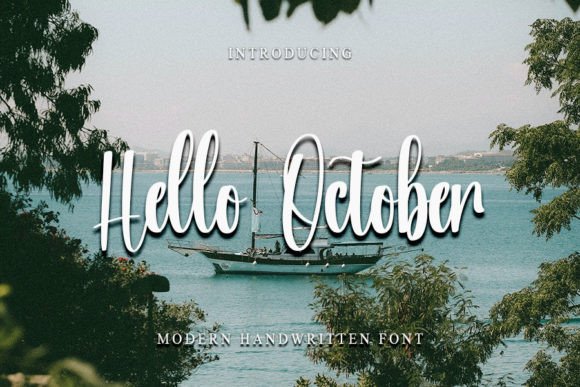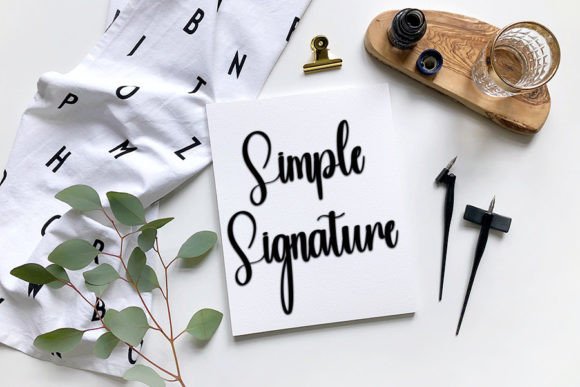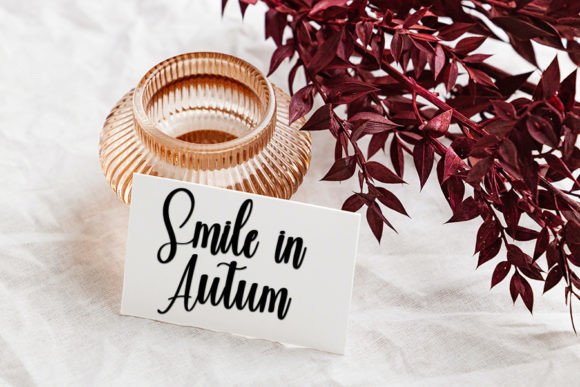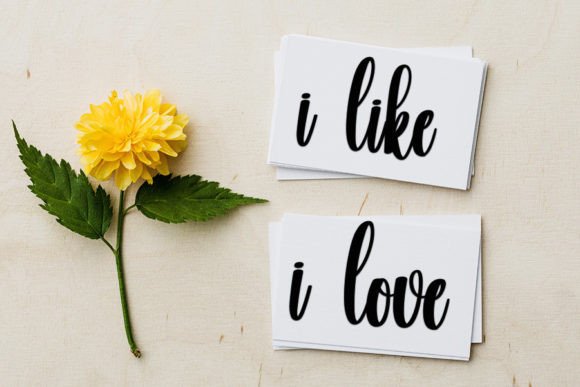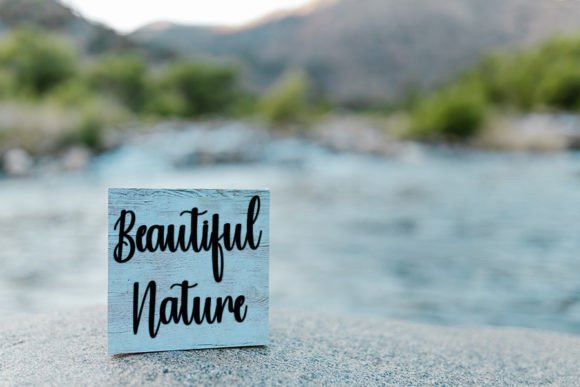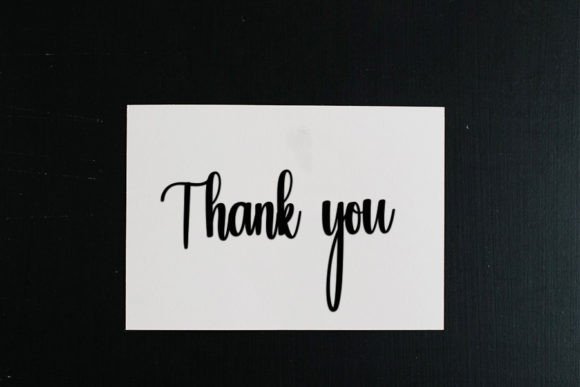
Hello October Font
Hello October Font : An Elegant Handwritten Font for Creative Designs
Hello October is a beautifully crafted handwritten font that combines elegance with a timeless style. This versatile typeface is perfect for a wide range of creative projects, from branding materials to digital content.
Key Features of Hello October Font
• Elegant Handwritten Style: Adds a touch of sophistication to your designs
• Clean and Legible: Maintains readability while offering a stylish aesthetic
• Versatile Application: Suitable for logos, branding, stationery, and more
Perfect for Multiple Design Projects
Hello October’s adaptability makes it an excellent choice for:
• Logo design and branding
• Marketing materials and posters
• Wedding invitations and stationery
• Digital content and social media graphics
• Print publications and book covers
Enhancing Your Creative Vision
With Hello October, you can infuse your designs with a sense of elegance and timelessness. Its distinct style helps your content stand out and leave a lasting impression on your audience.
Crafting with Hello October
Whether you’re working on print or digital projects, Hello October seamlessly integrates into various design contexts. Its balance between style and readability ensures that your message is conveyed with clarity and sophistication.
Digital Design Applications
In the digital realm, Hello October shines by adding a touch of elegance to your content. Use it for:
• Eye-catching website headers
• Engaging social media graphics
• Stylish email marketing campaigns
• Distinctive blog post titles
Hello October is more than just a font; it’s a design asset that elevates your creative projects with elegance and timeless charm. Its neat handwritten style inspires visually striking and memorable designs that leave a lasting impact. By incorporating Hello October into your designs, you can create visually appealing and sophisticated content that engages your audience. Whether you’re a professional designer or someone looking to add a touch of elegance to personal projects, Hello October offers the perfect blend of style and versatility. Consider pairing Hello October with clean sans-serif fonts for contrast or complementing it with other script fonts for a dynamic typographic palette. This versatility allows you to create designs that are both elegant and harmonious across various mediums and industries. Embrace the charm of Hello October today and watch as it transforms your creative ideas into spectacular and memorable designs!